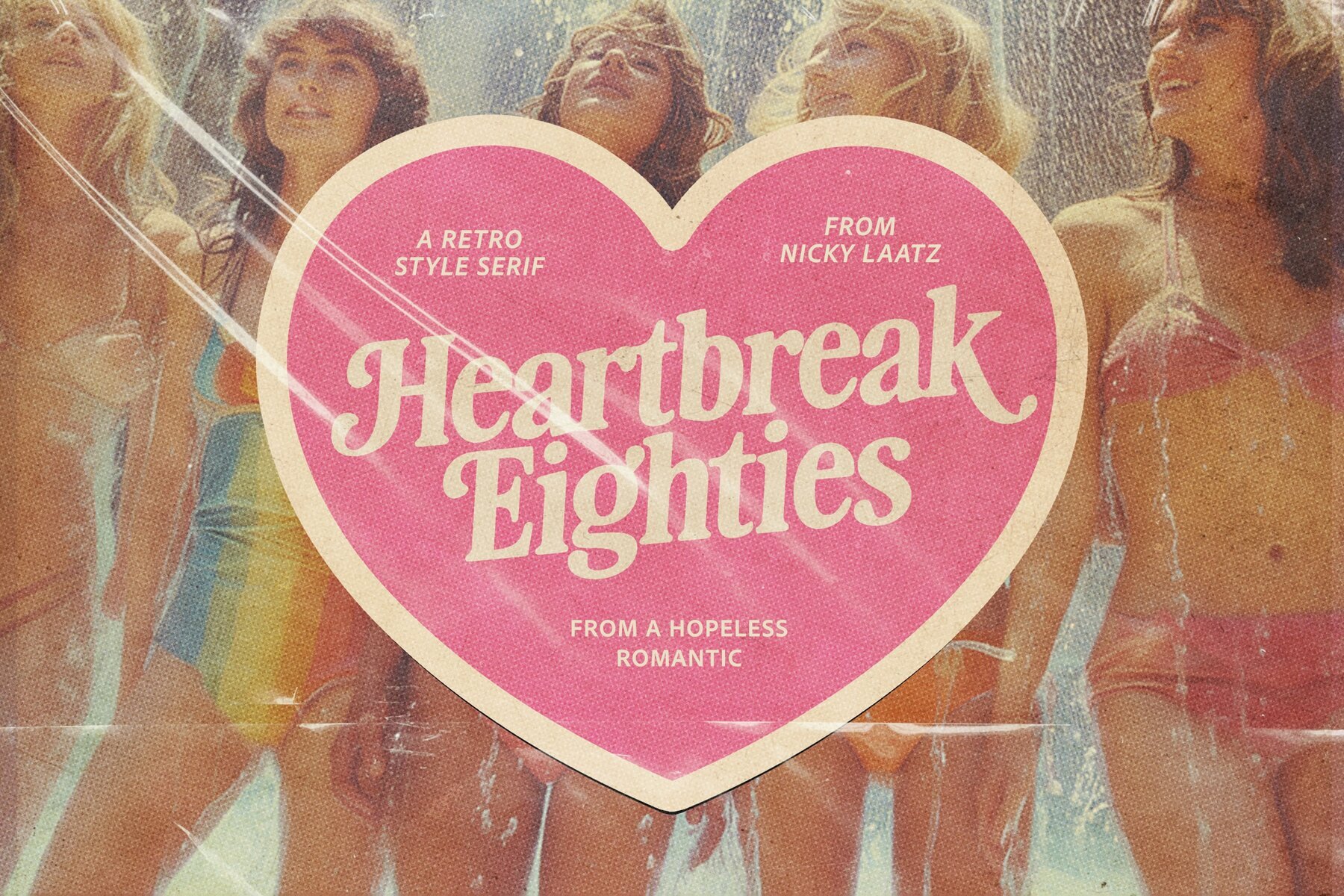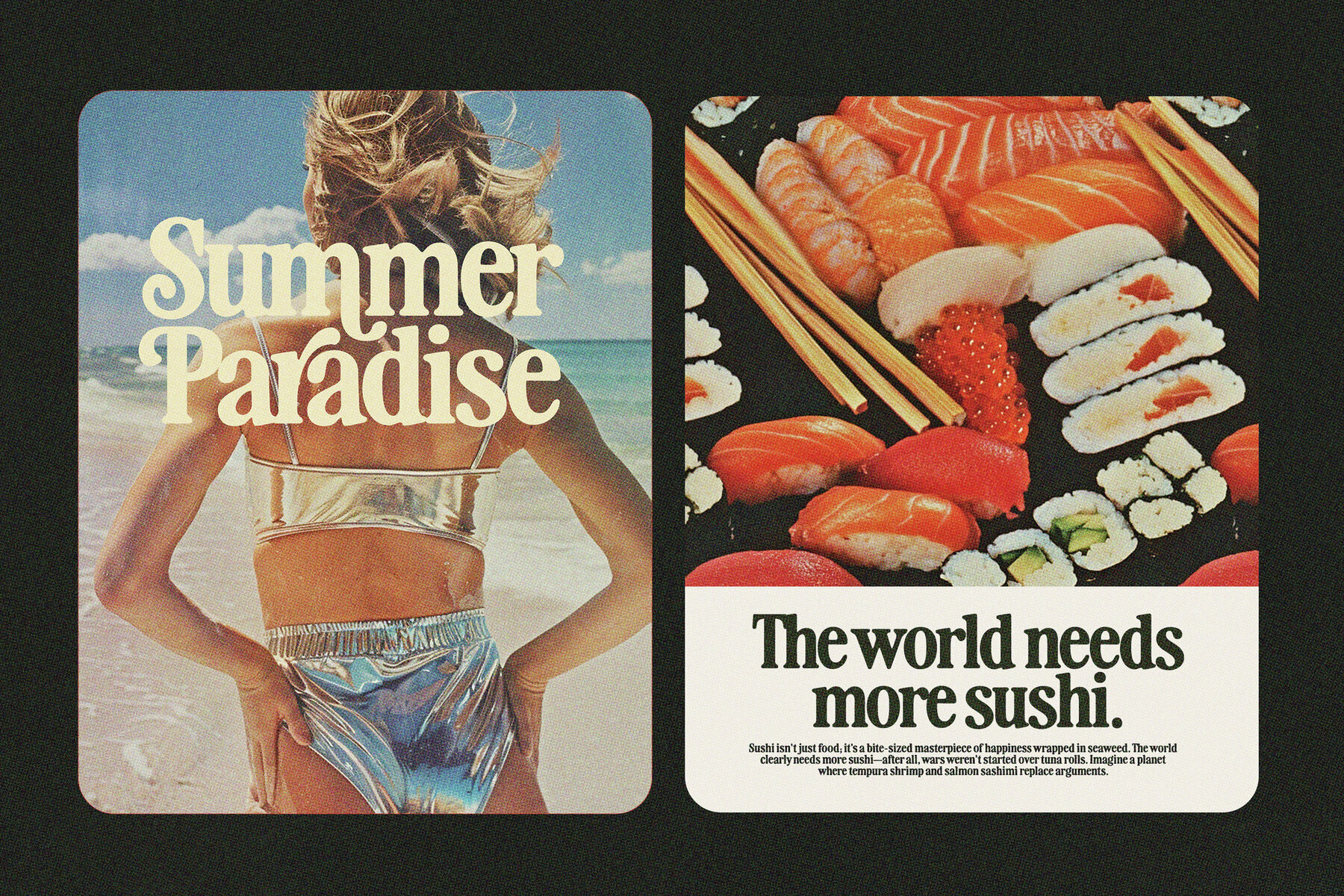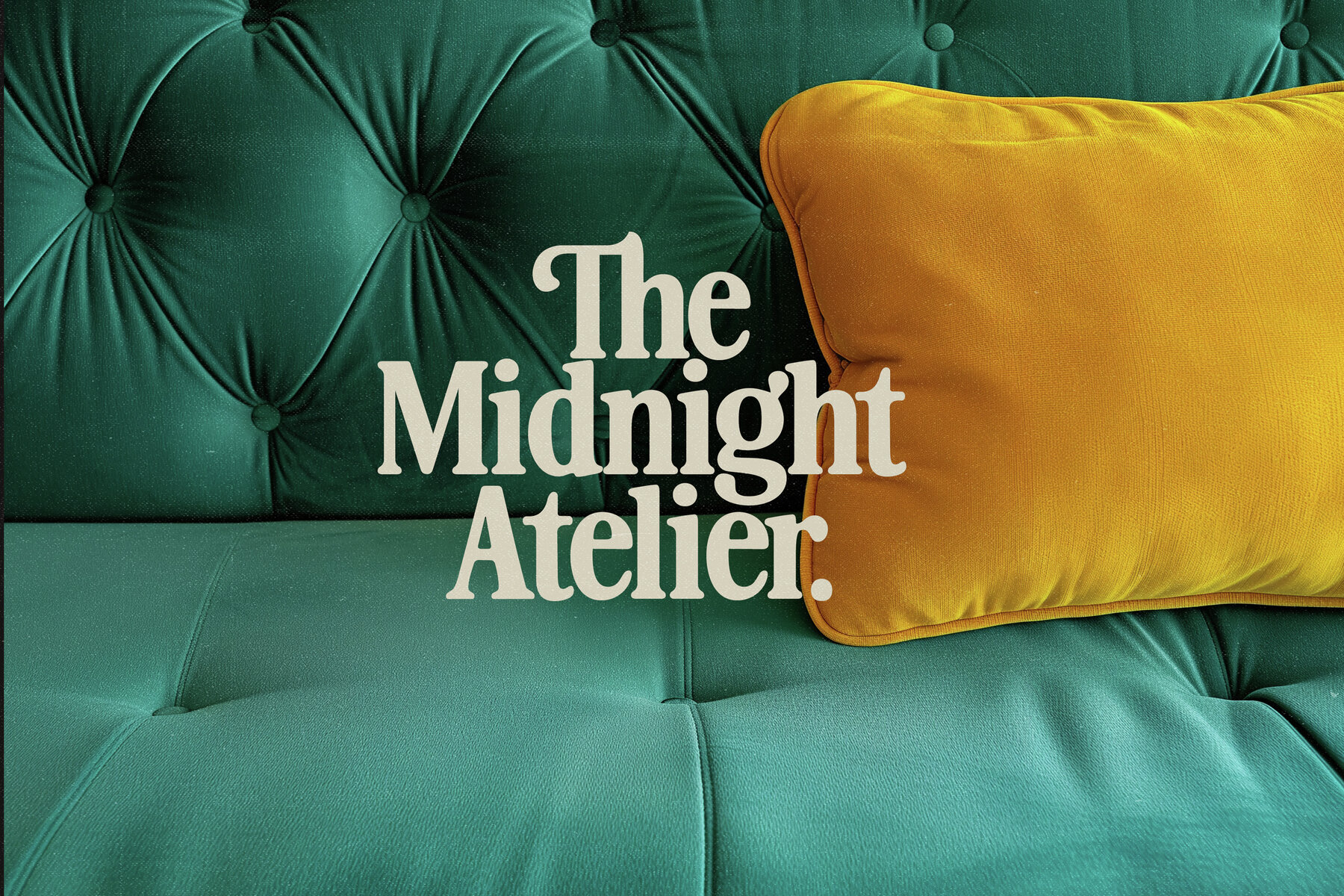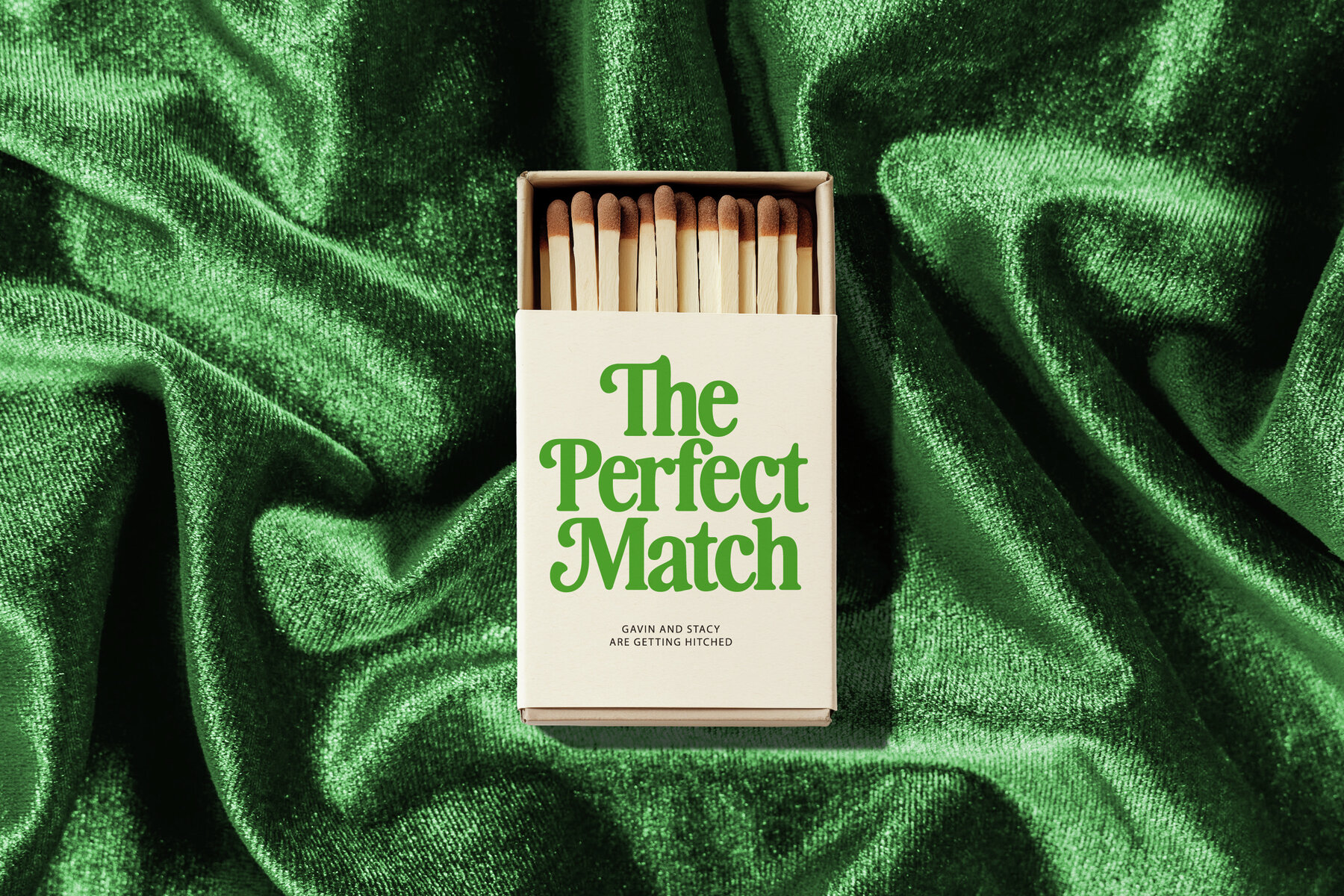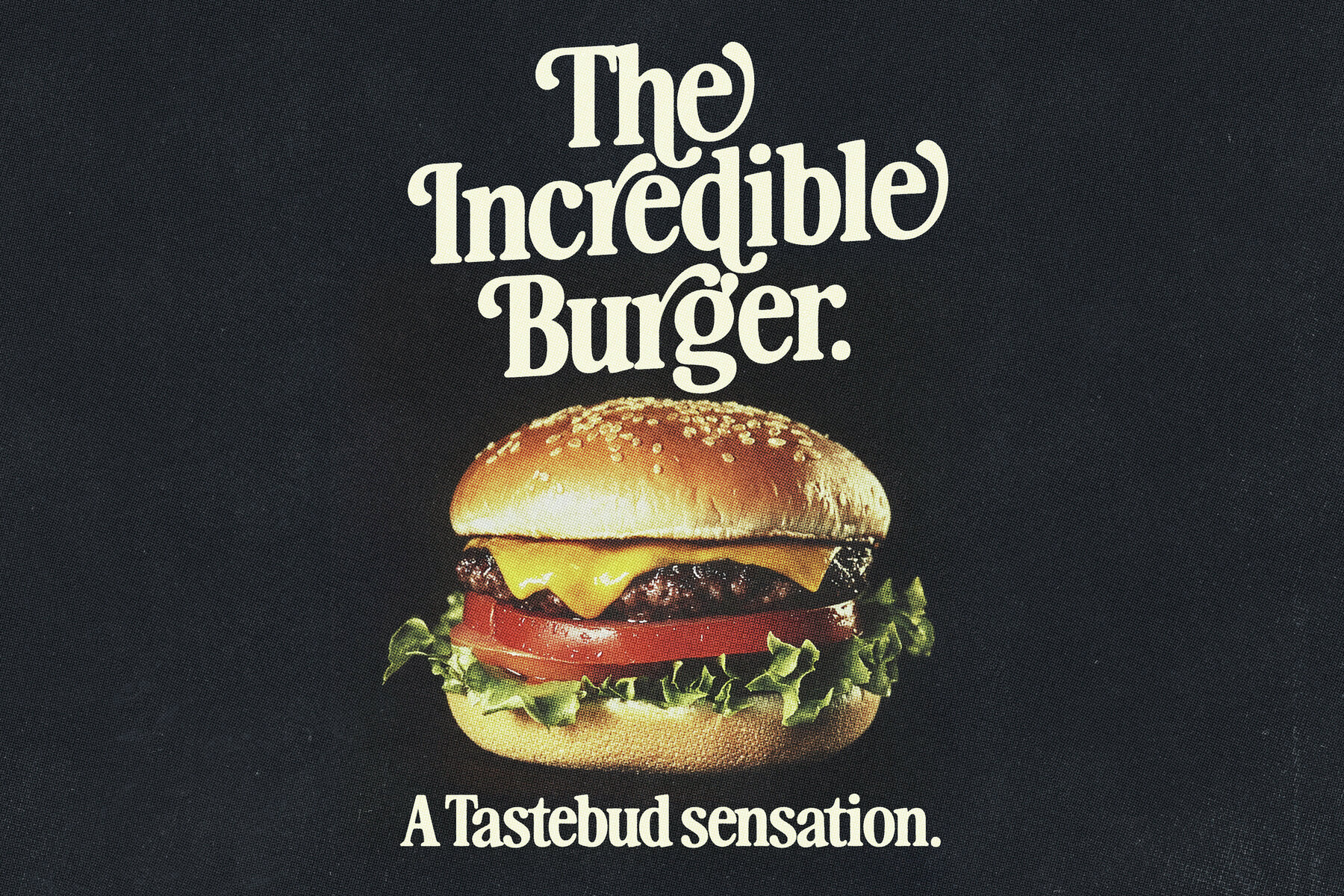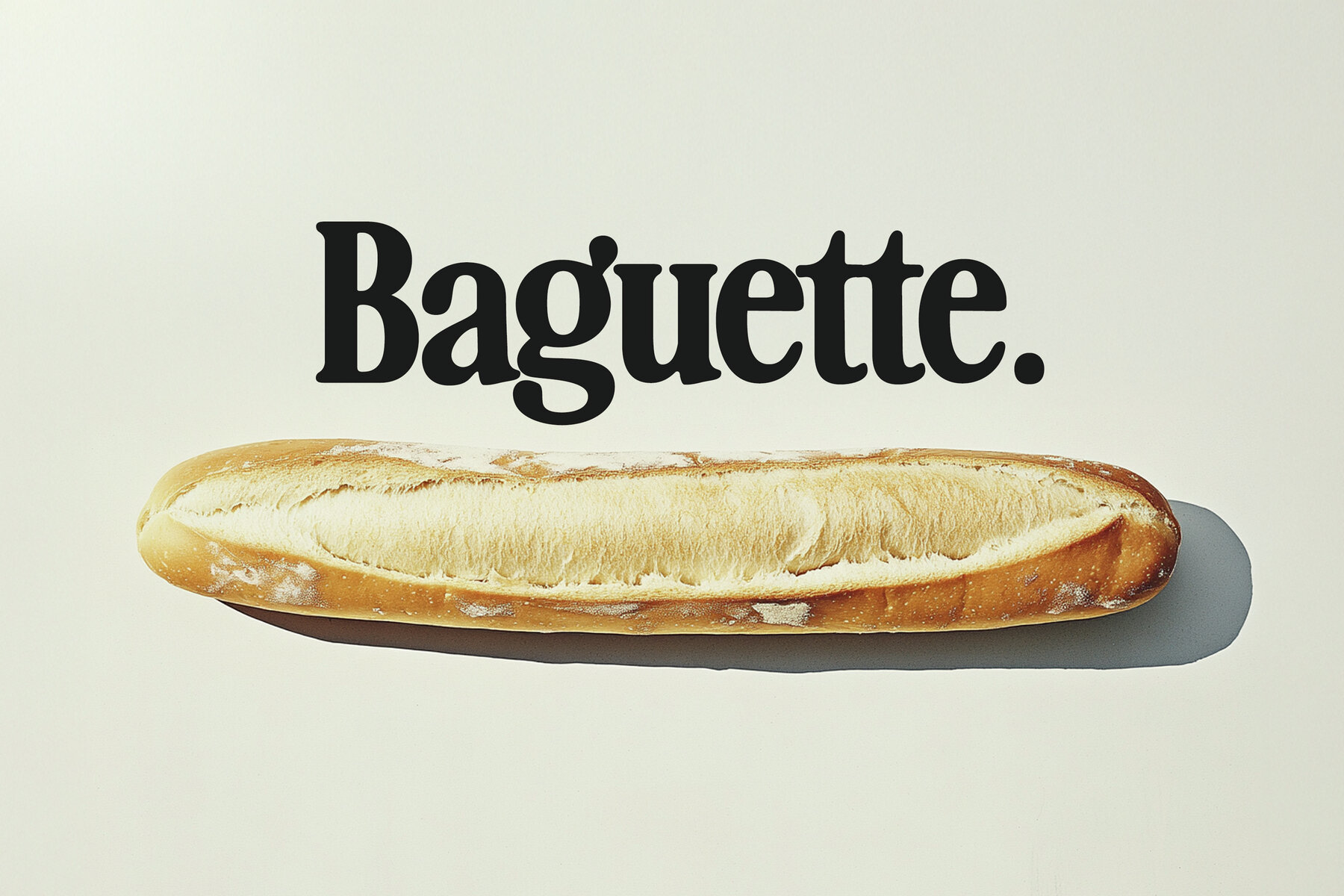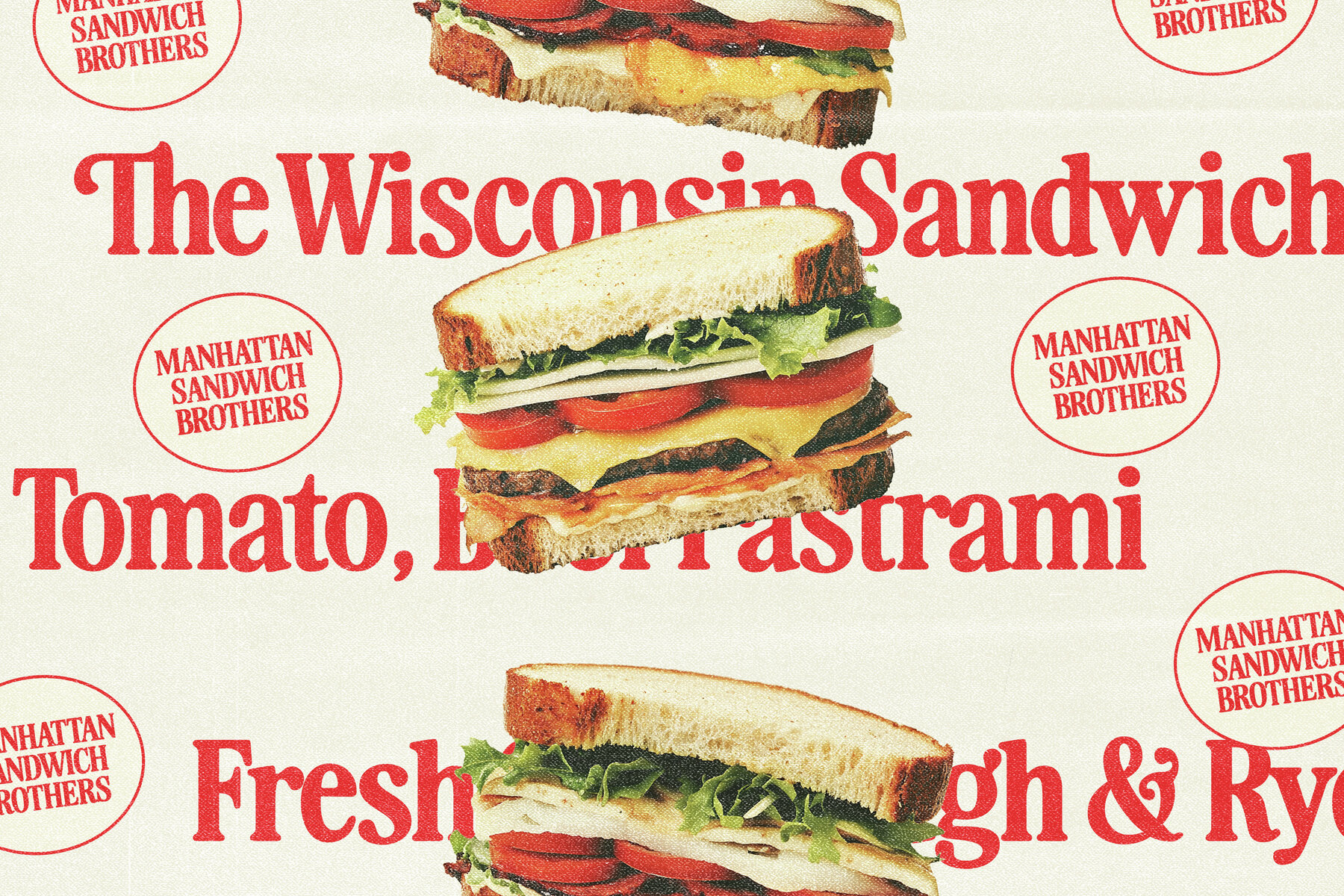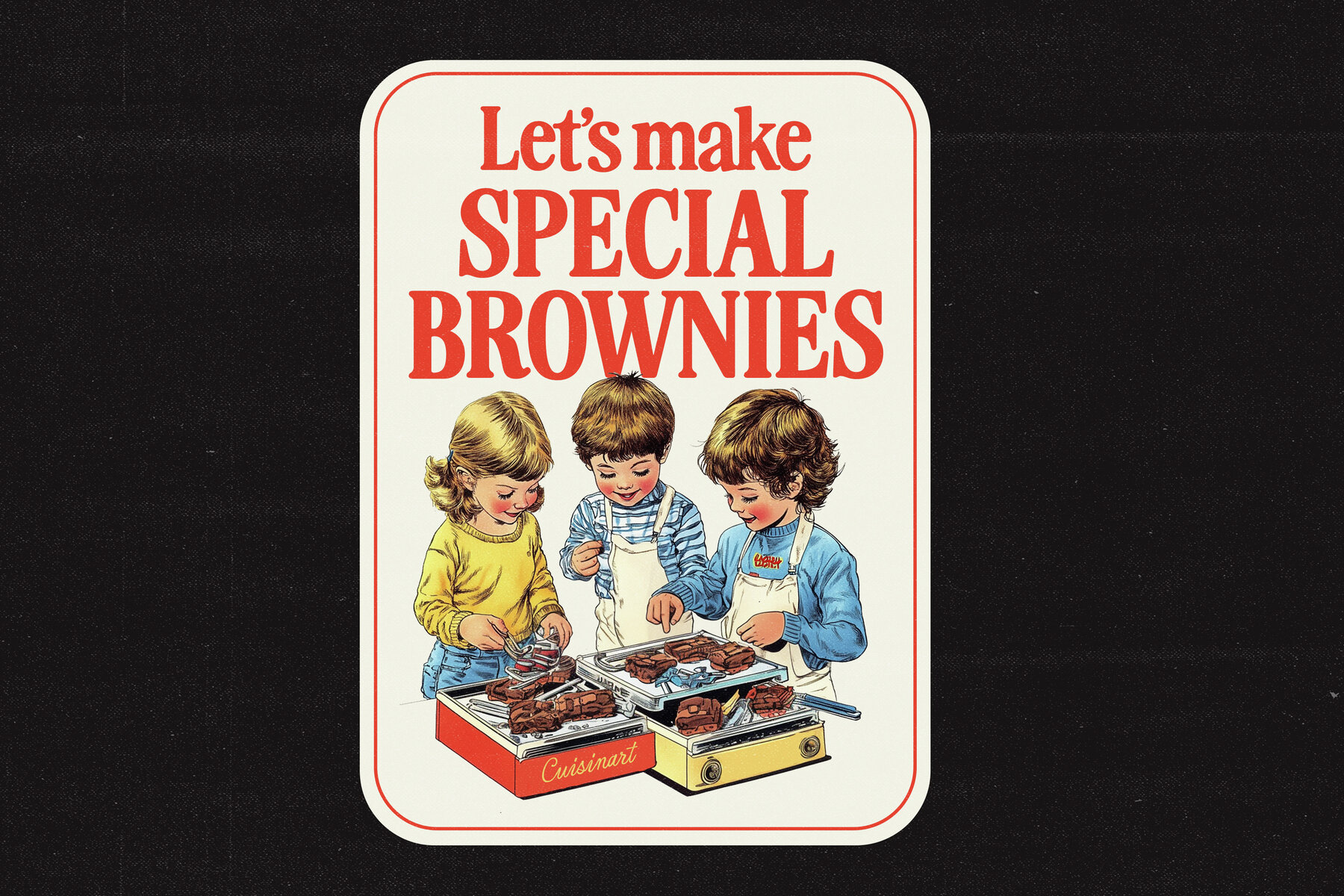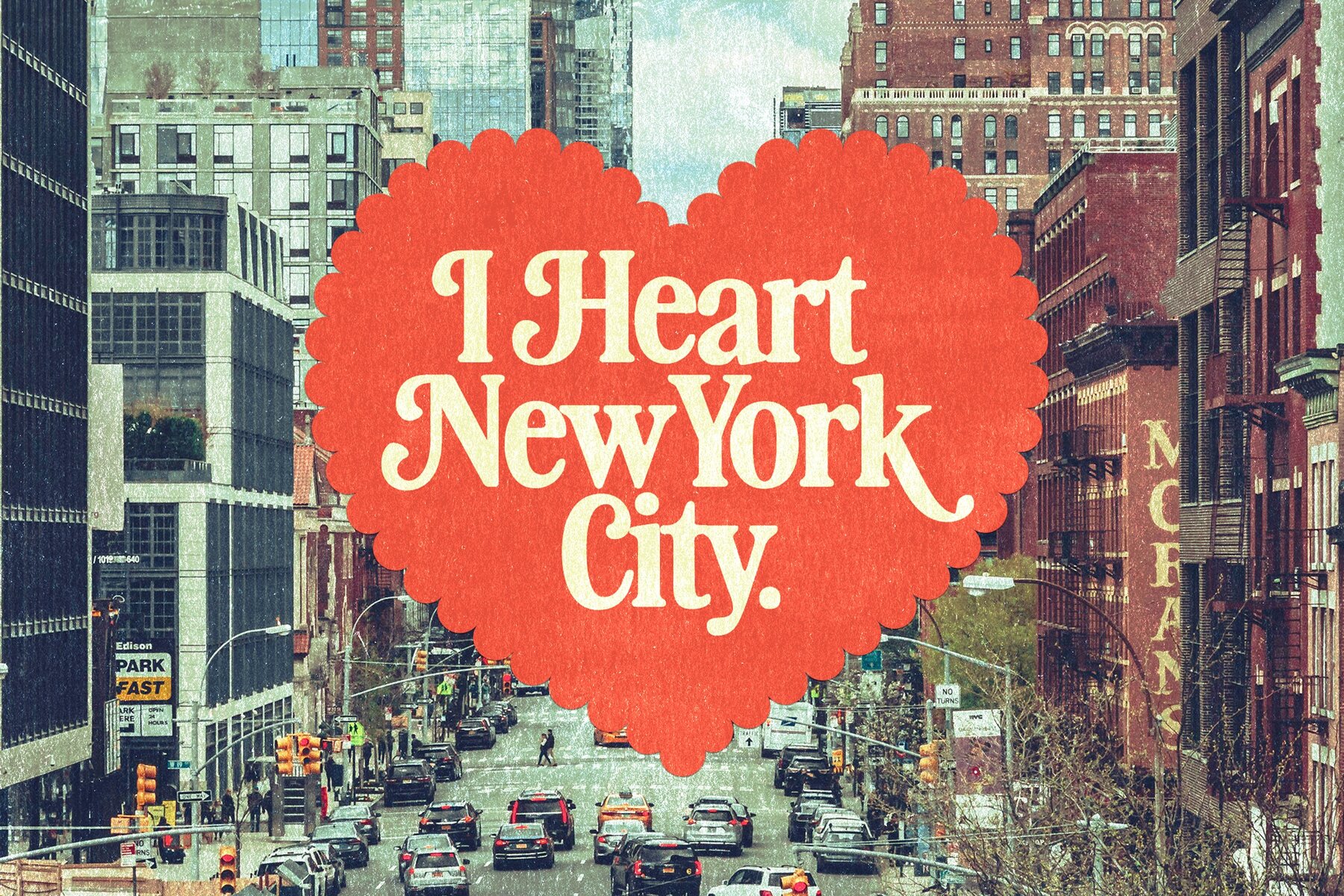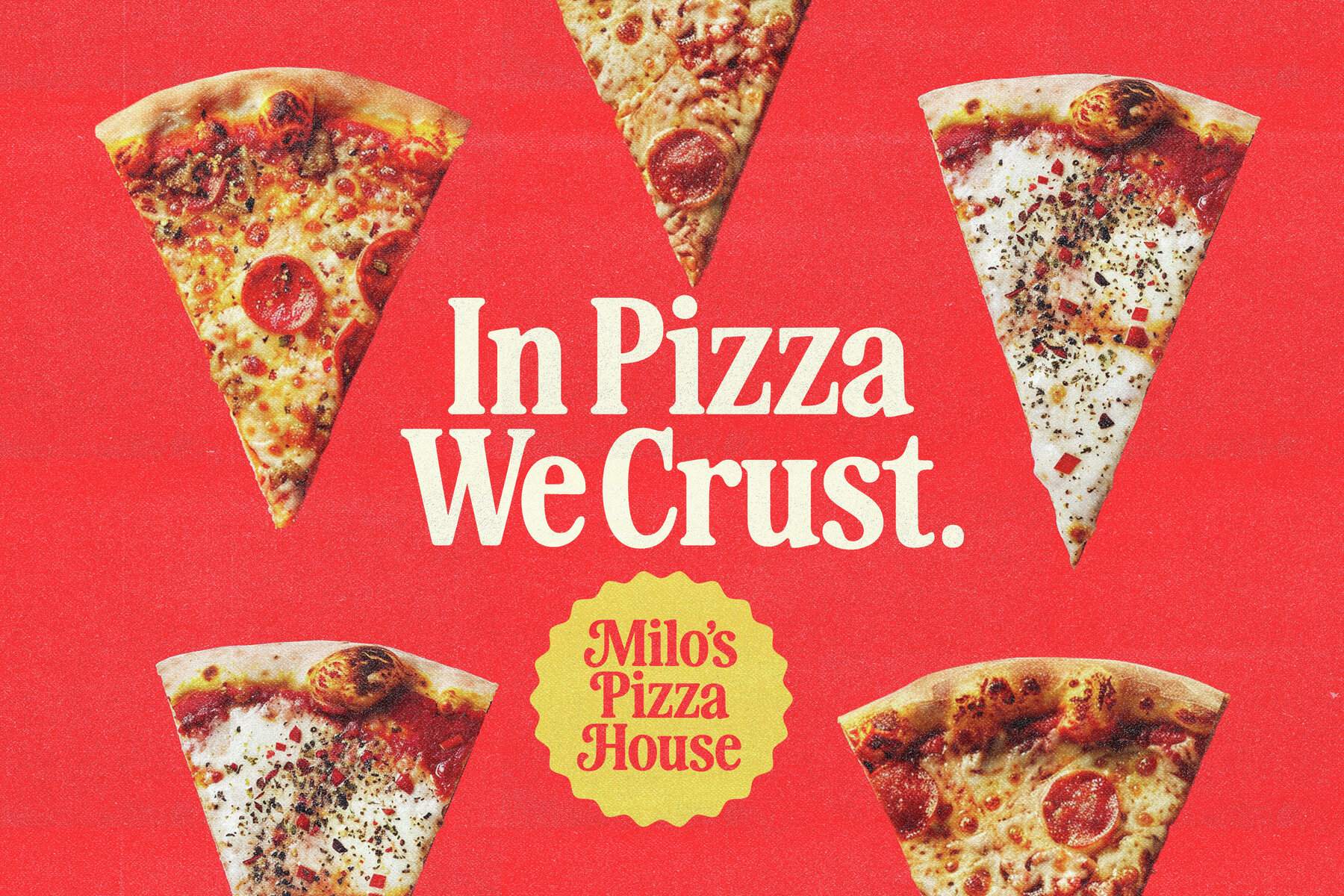
Heartbreak Eighties Font
Glamour Absolute and Awesome Serif had a love child...and named her "Heartbreak Eighties" ! With bold 80s vibes and silky soft edges, she's designed to turn heads and woo all the retro lovers. She can be feminine or masculine...a true brand chameleon! Have a look through the previews to see all her different faces :) Don't forget to experiment with your letter-spacing to add to your retro feels :) For large display text - tighten that tracking...and for smaller body text, stretch it out a little :) A plethora of Opentype swashy alternates transform her into full retro mode. She also comes in an Oblique version. PUA encoded for those without any special opentype support - just copy and paste the alternates from your Fontbook or Charmap. Language support : Danish, English, Filipino, French, Friulian, Galician, German, Italian, Low German, Luo, Luxembourgish, Norwegian Bokmål, Norwegian Nynorsk, Portuguese, Spanish, Swedish, Swiss German. ENJOY!